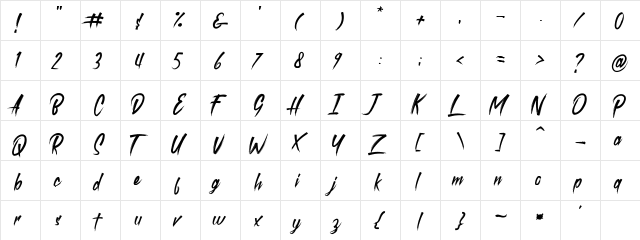
roastink demo Regular
| Foundry | semuthitam creative |
| Designer | junart |
Design Context for roastink demo Typeface
roastink demo is a composed and adaptable typeface that performs quietly and consistently across a wide range of design contexts.